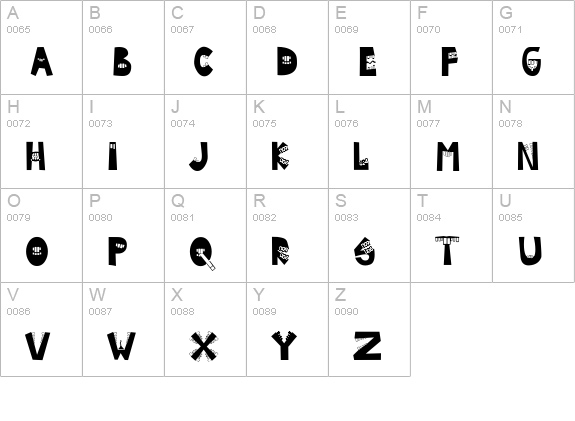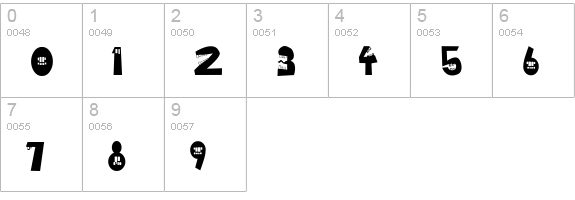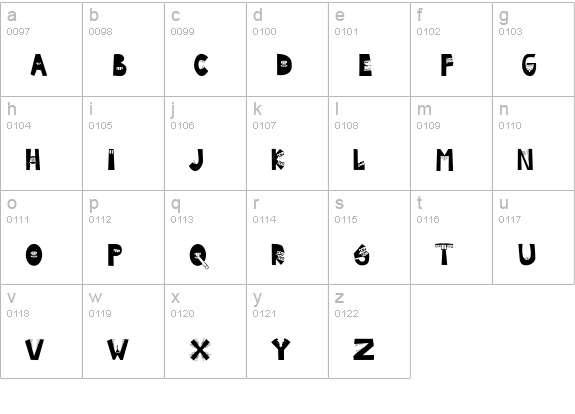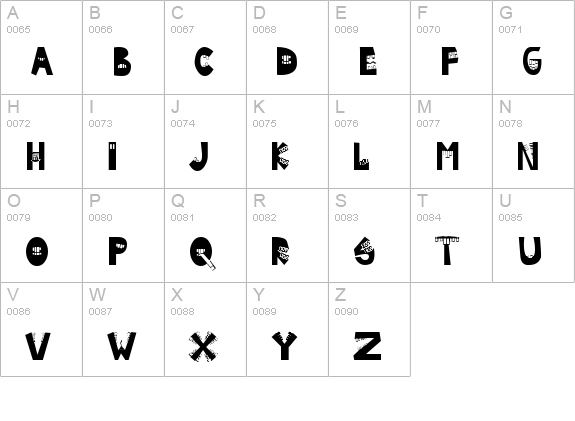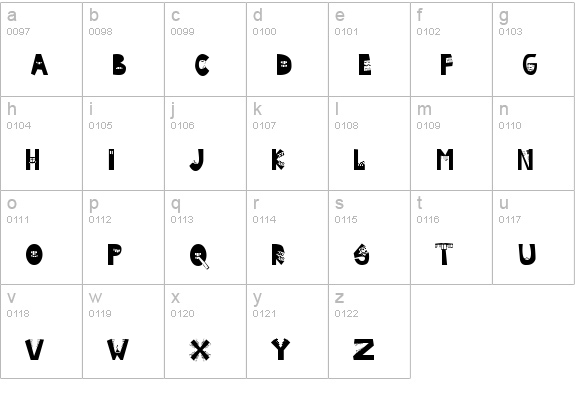
Byte Caps Font Details
Discover the sleek and modern design of Byte Caps font, a versatile typeface that combines sharp edges with subtle curves to create a unique and contemporary look. This font is perfect for a wide range of projects, from branding to editorial design. With its bold and eye-catching style, Byte Caps font is sure to make a statement. What's more, Byte Caps font is available for free download at FontsMarket.com. This means you can easily access this stylish typeface and incorporate it into your designs without any hassle. Don't miss out on the opportunity to enhance your projects with the dynamic and engaging Byte Caps font today!